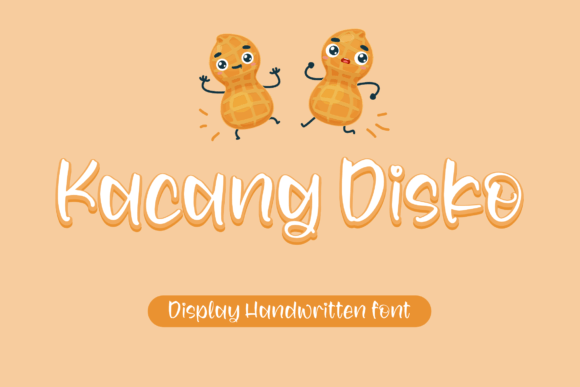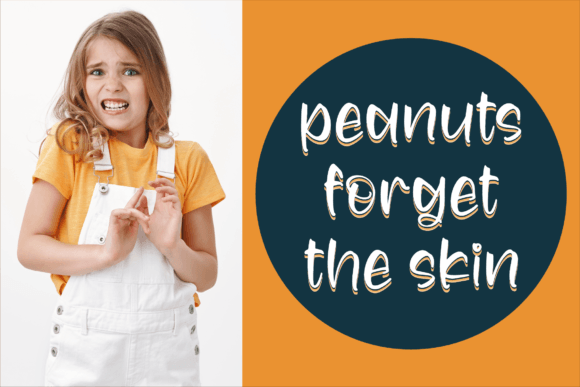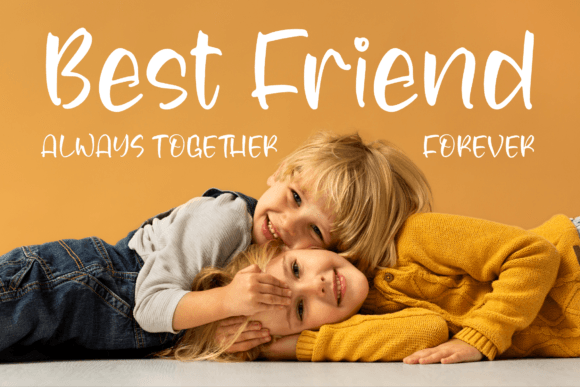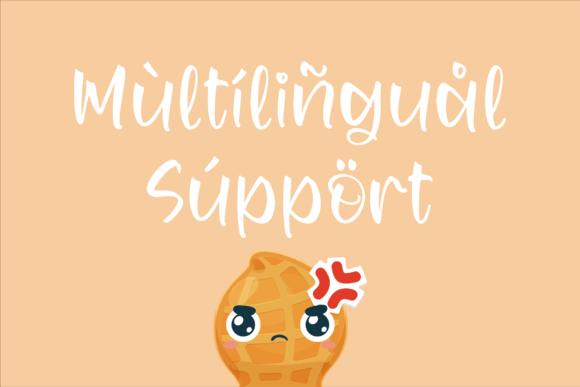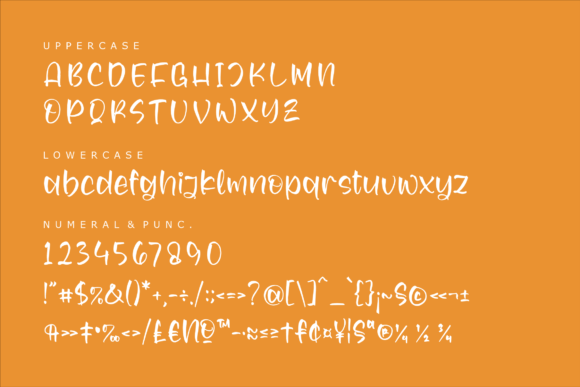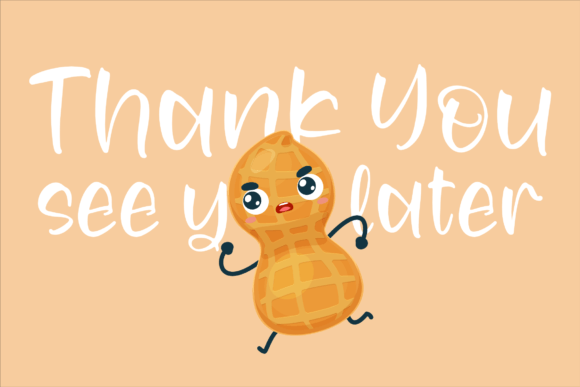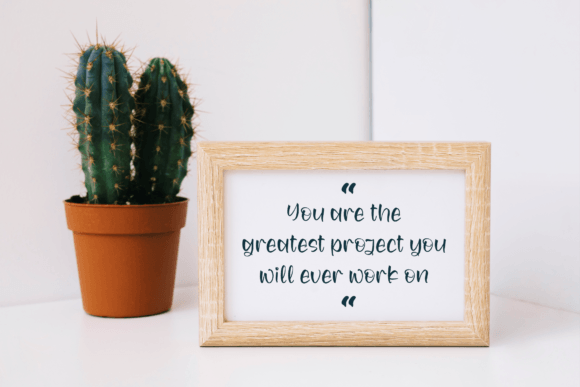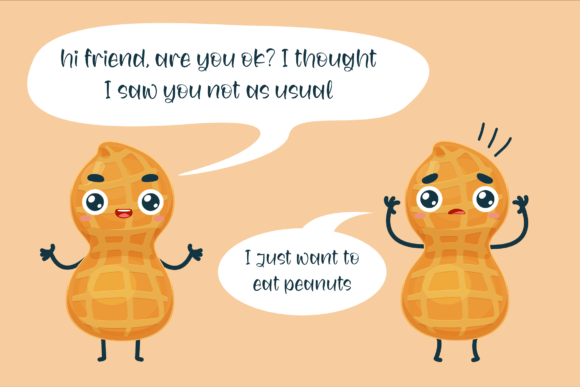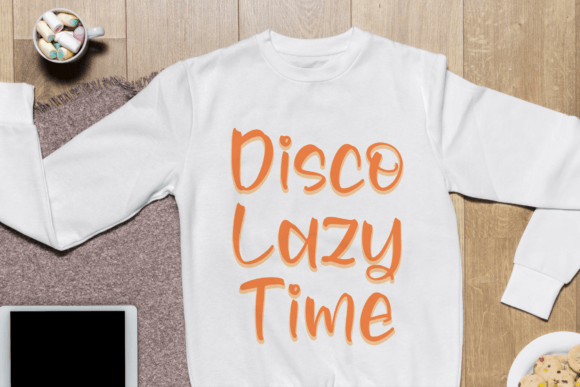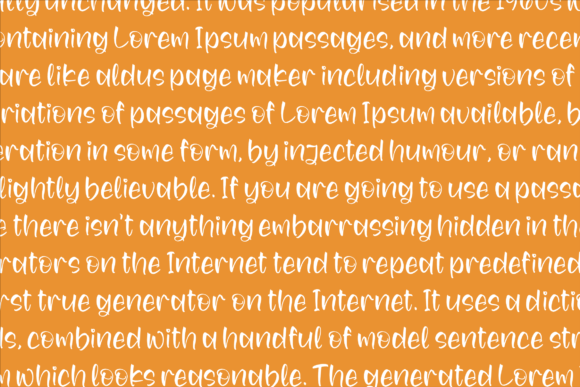
Kacang Disko Font
Add Playful Charm with Kacang Disko Font
Kacang Disko Font is an adorable handwritten script font designed to bring a lively and friendly vibe to your creative projects. Its playful strokes and smooth curves give your work a fresh, handcrafted feel, making it perfect for a variety of design needs. Whether you’re creating logos, packaging, or invitations, Kacang Disko Font adds personality and charm to every project.
This font’s unique and approachable style makes your designs feel fun, warm, and engaging.
Perfect for a Wide Range of Projects
Kacang Disko Font works wonderfully for numerous applications, including:
• Logos and branding projects
• Homeware and product packaging
• Mugs, t-shirts, and merchandise designs
• Quotes and posters
• Shopping bags and labels
• Book covers and stationery
• Invitation cards and greeting cards
• Photography watermarks and special events
Its handwritten style enhances your designs with a cute and stylish script look, perfect for connecting with your audience on a personal level.
The font features well-kerned letters and balanced spacing to ensure clarity and legibility across different sizes and mediums.
Why Designers Love Kacang Disko Font
Designers and crafters appreciate Kacang DiskoFont for its playful yet elegant style. It adds a handcrafted touch that feels both fun and professional, making it a versatile choice for various creative projects. Whether you are a professional designer or a hobbyist, this font helps bring your ideas to life with personality and flair.
Use Kacang DiskoFont to make your next design project stand out with its adorable handwritten charm.